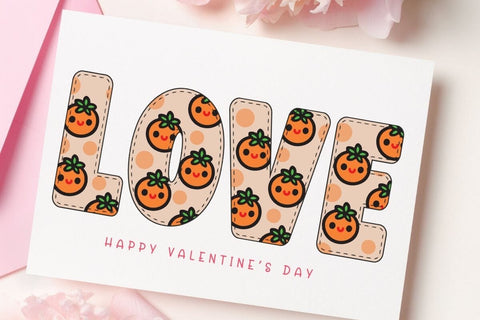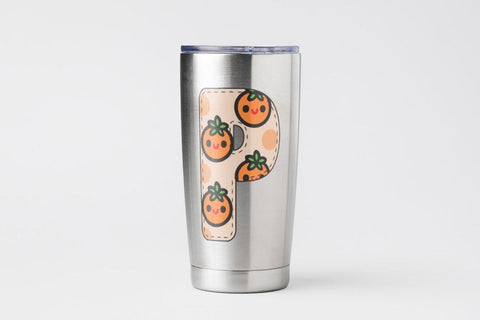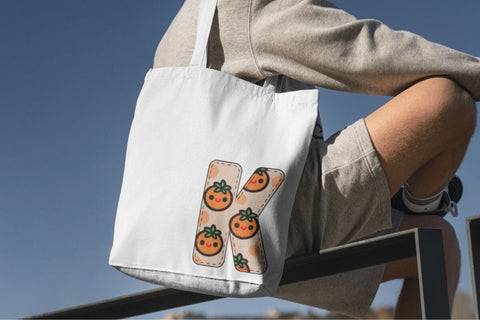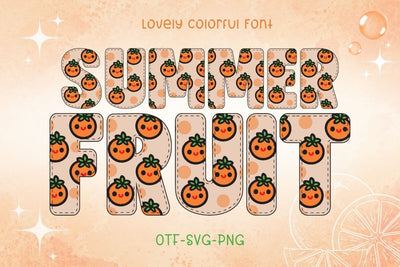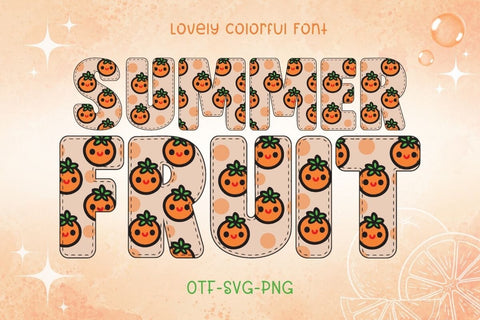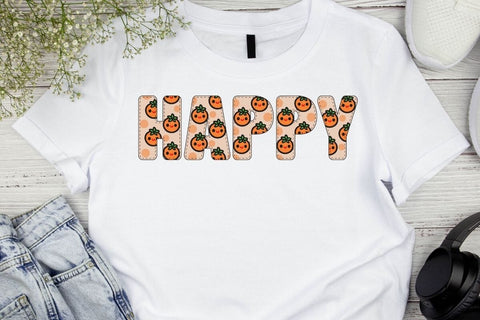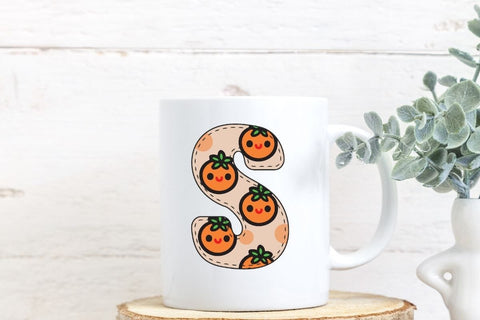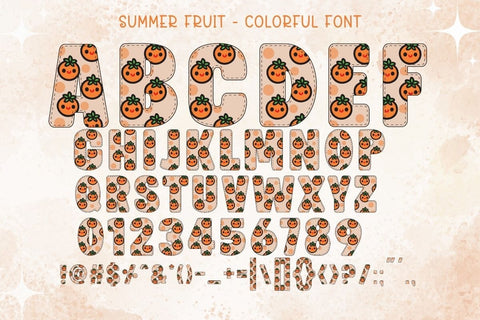
Summer Fruit - Color Font
Summer Fruit is a cute colorful font. This font uses cute cartoon oranges to form a pattern on the letters, giving it a unique look. This font is perfect for all your summer fruit-themed projects. You can use it to design products like banners, content, mugs, cards, shirts, stationery, social media posts, and so much more!